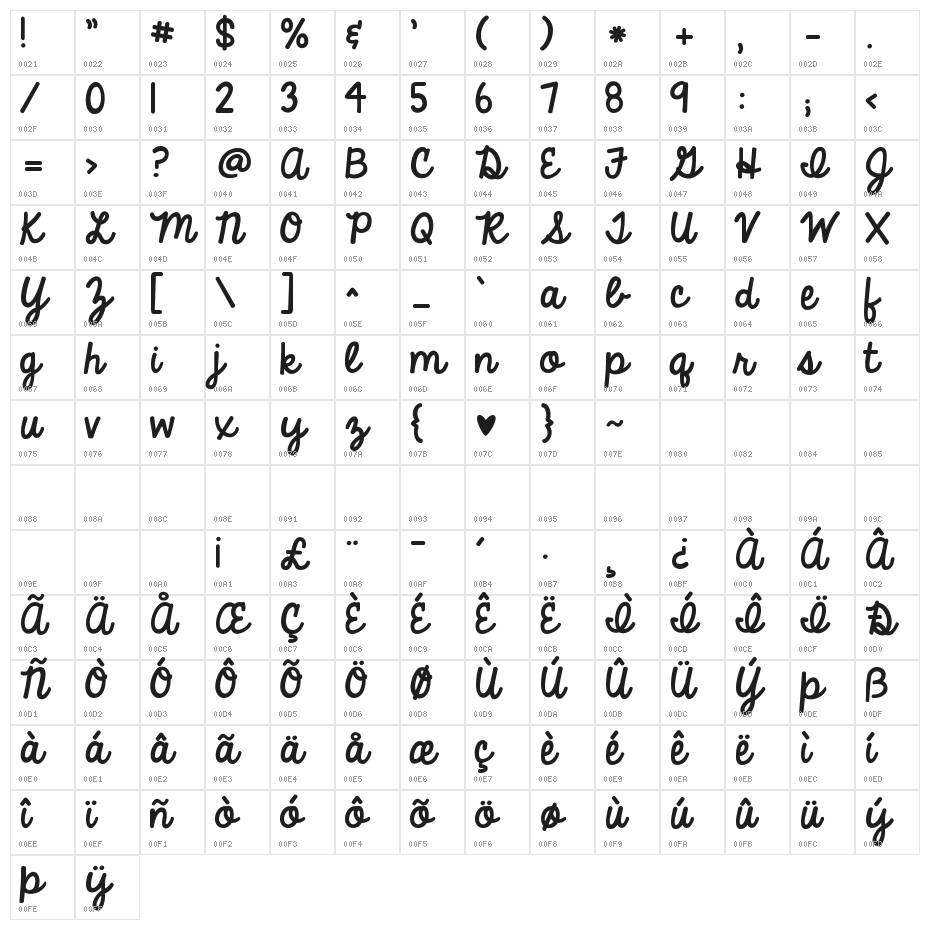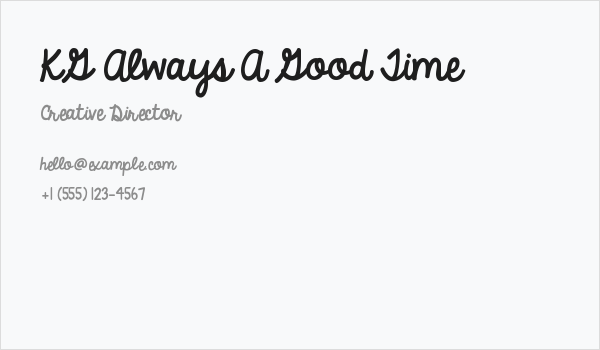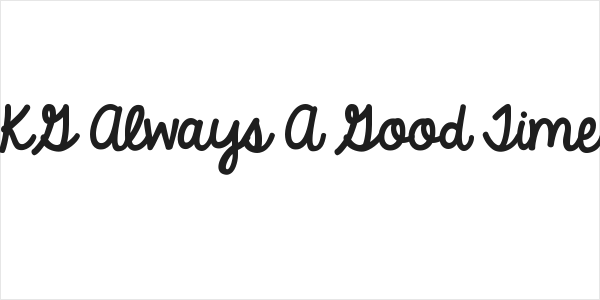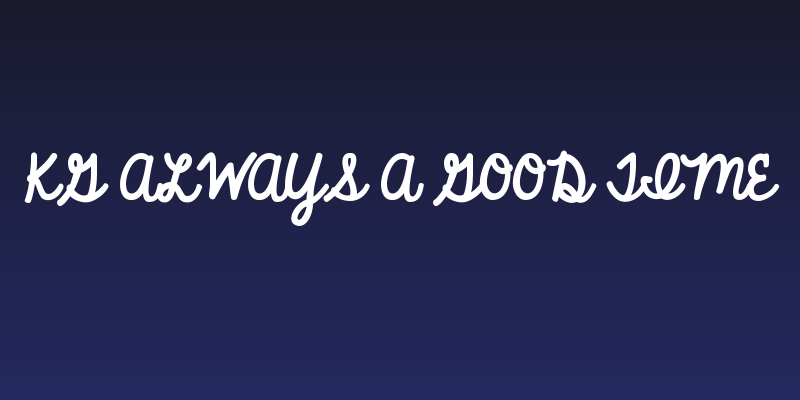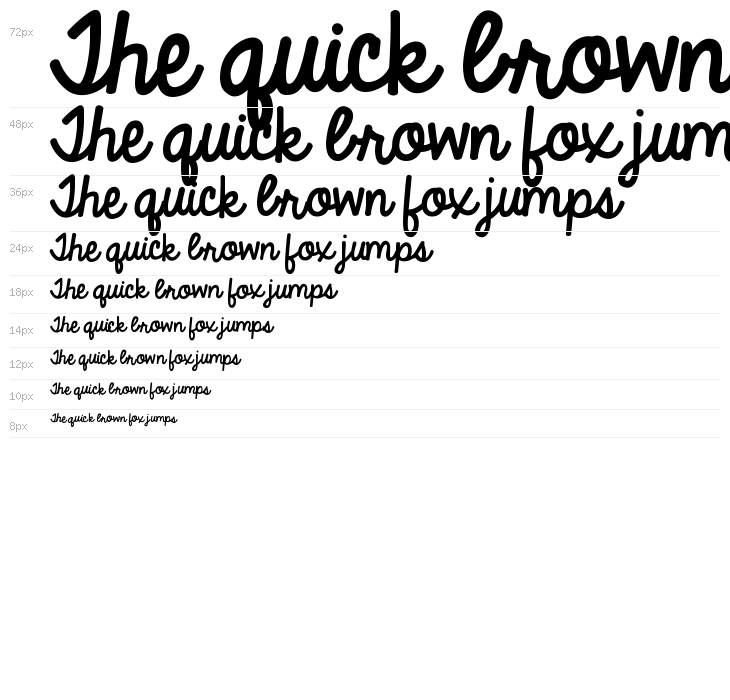
KG Always A Good Time Font
KG Always A Good Time Description
This playful and energetic font features a handwritten script style with smooth, flowing curves and a casual, friendly appearance. The letters are connected, giving it a cohesive and continuous look, reminiscent of cursive handwriting. The strokes are bold and consistent, providing a strong visual impact. The font maintains a uniform thickness throughout, which contributes to its legibility and charm. It includes a full set of uppercase and lowercase letters, numbers, and a variety of special characters, making it versatile for different design needs.
| Proposed Projects | Ideal for greeting cards, invitations, playful branding, and social media graphics. |